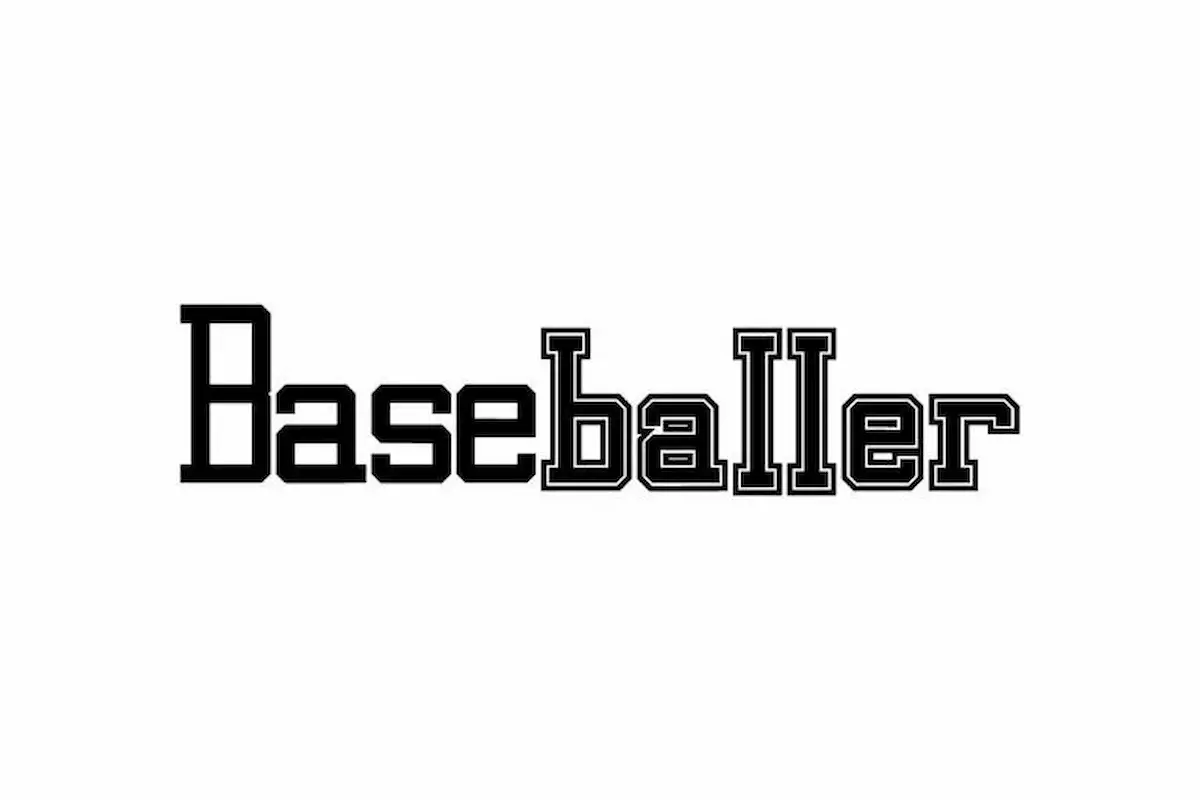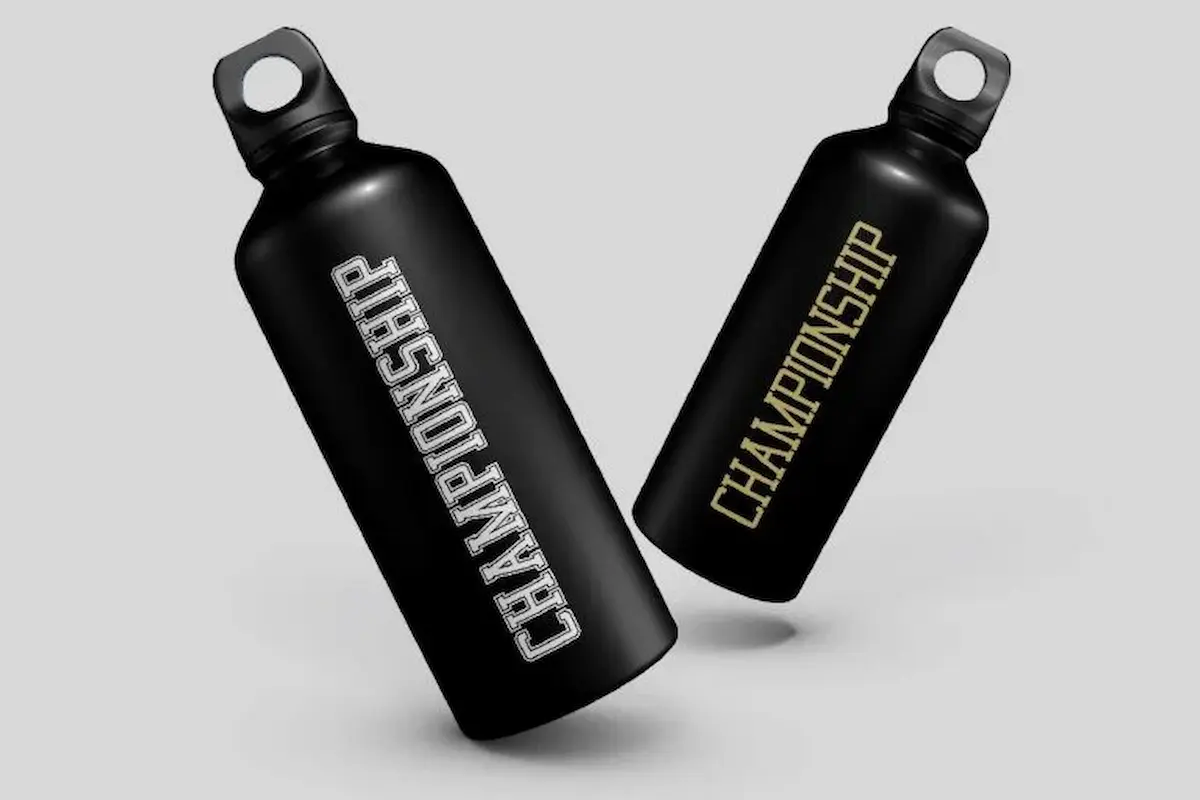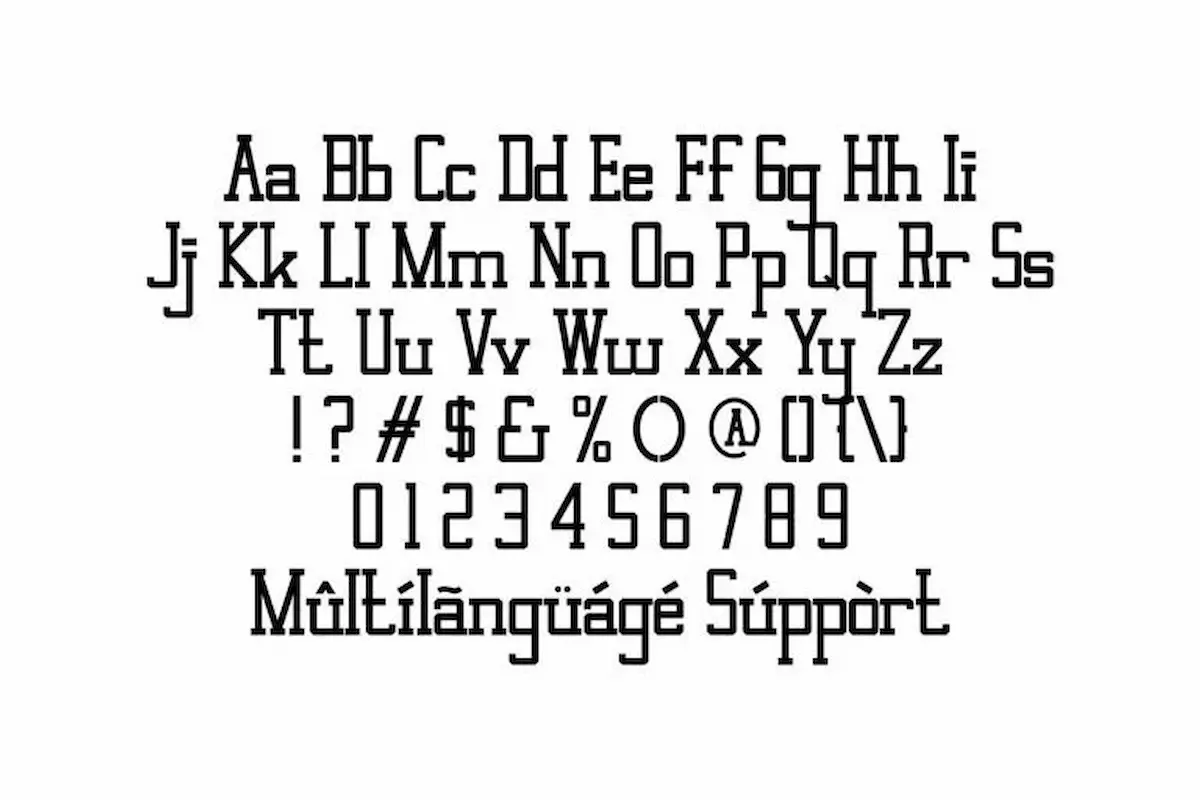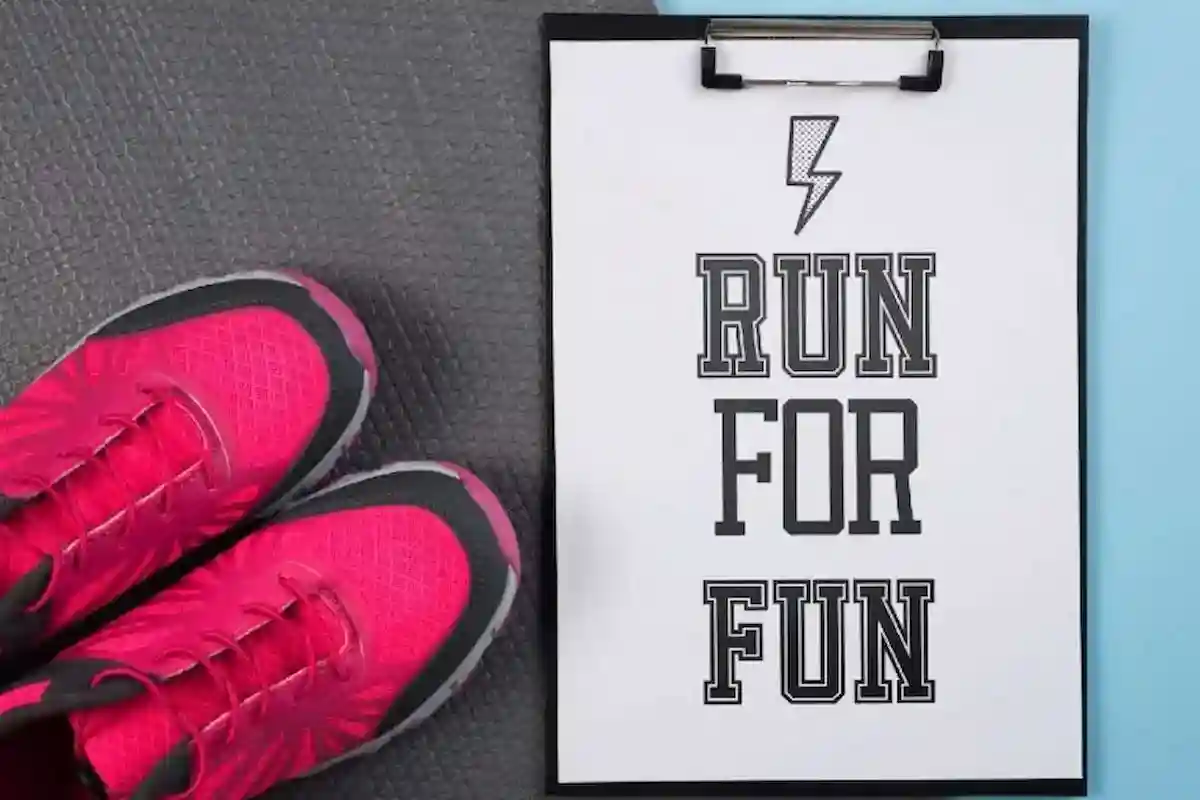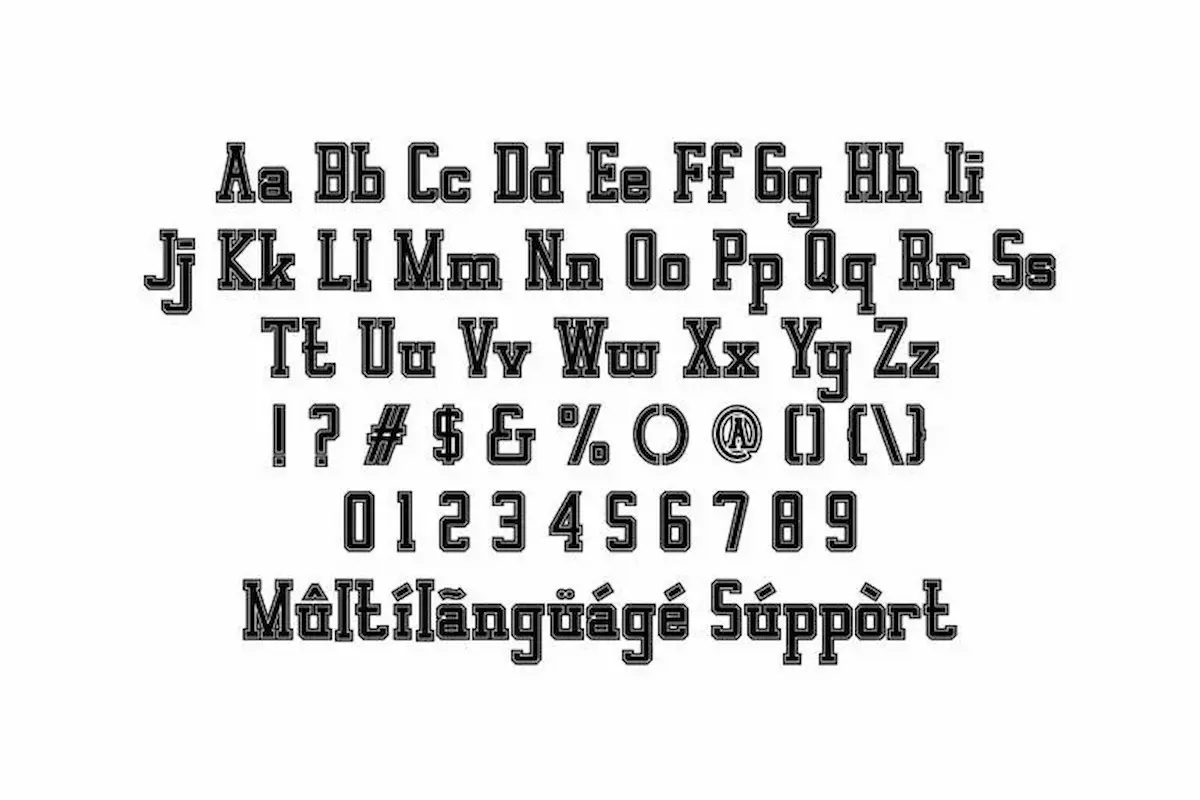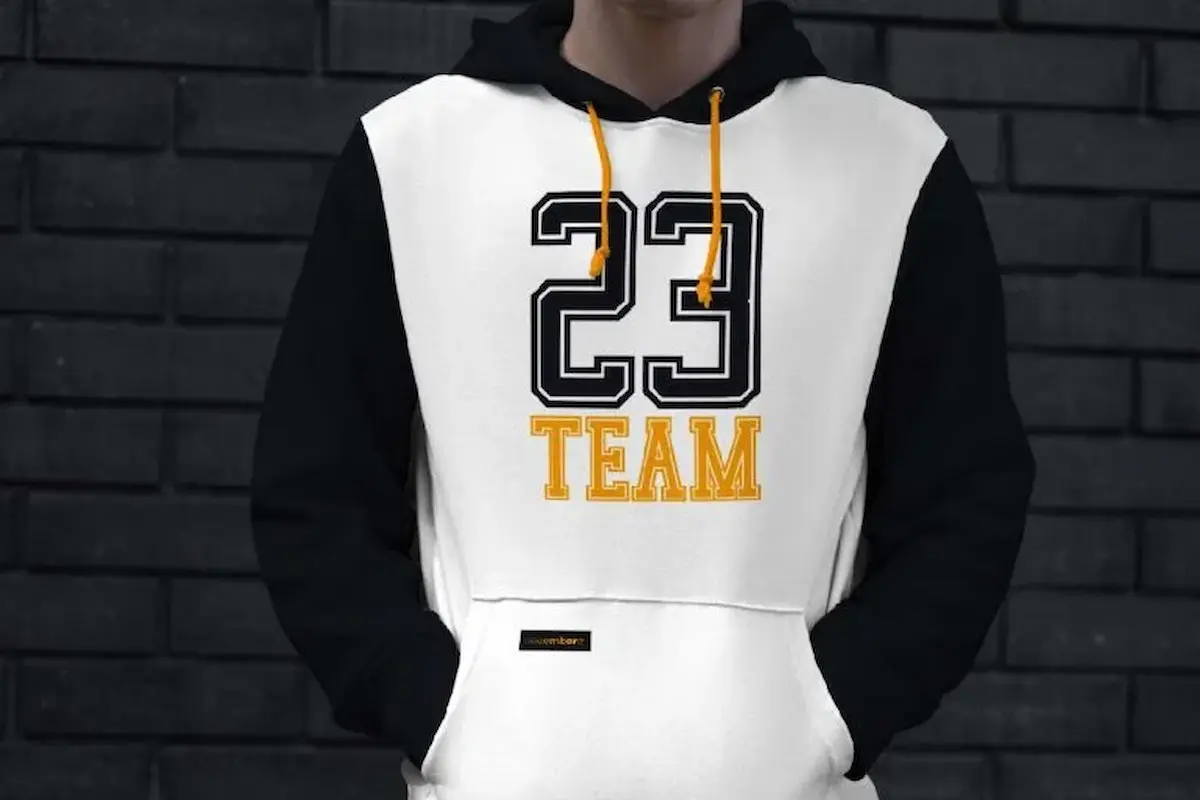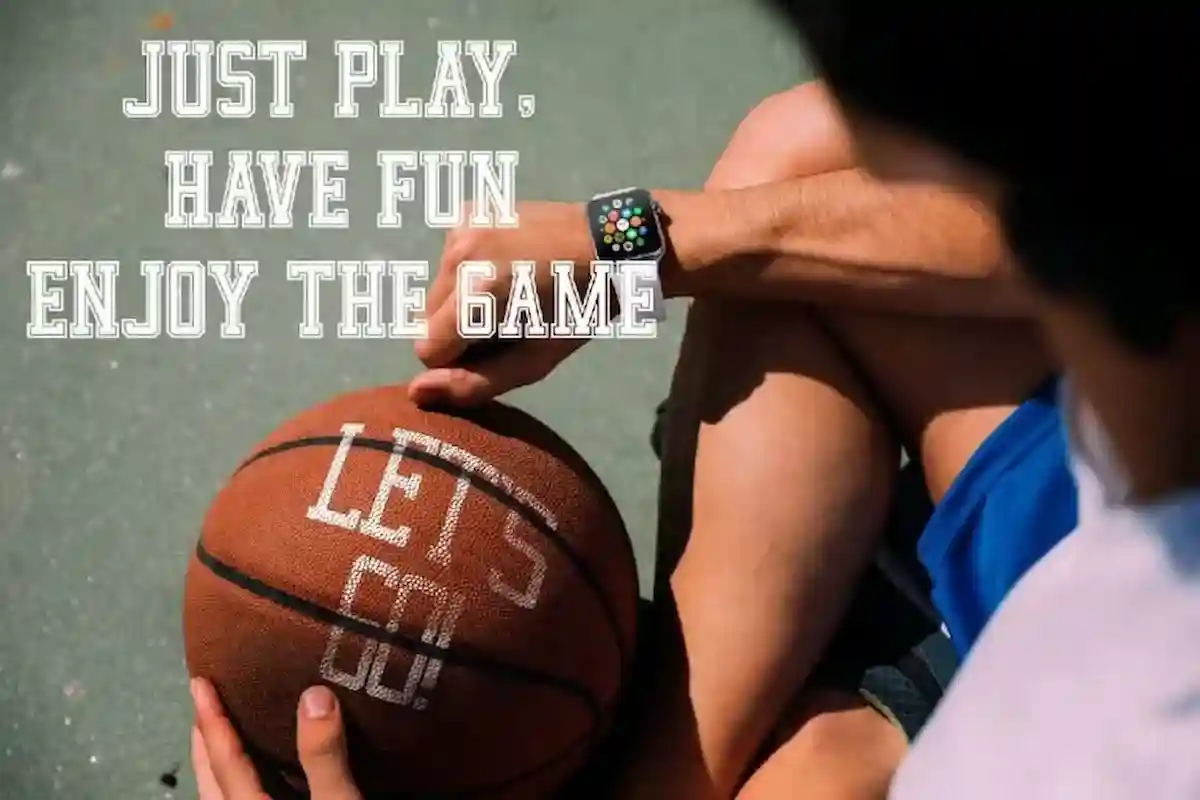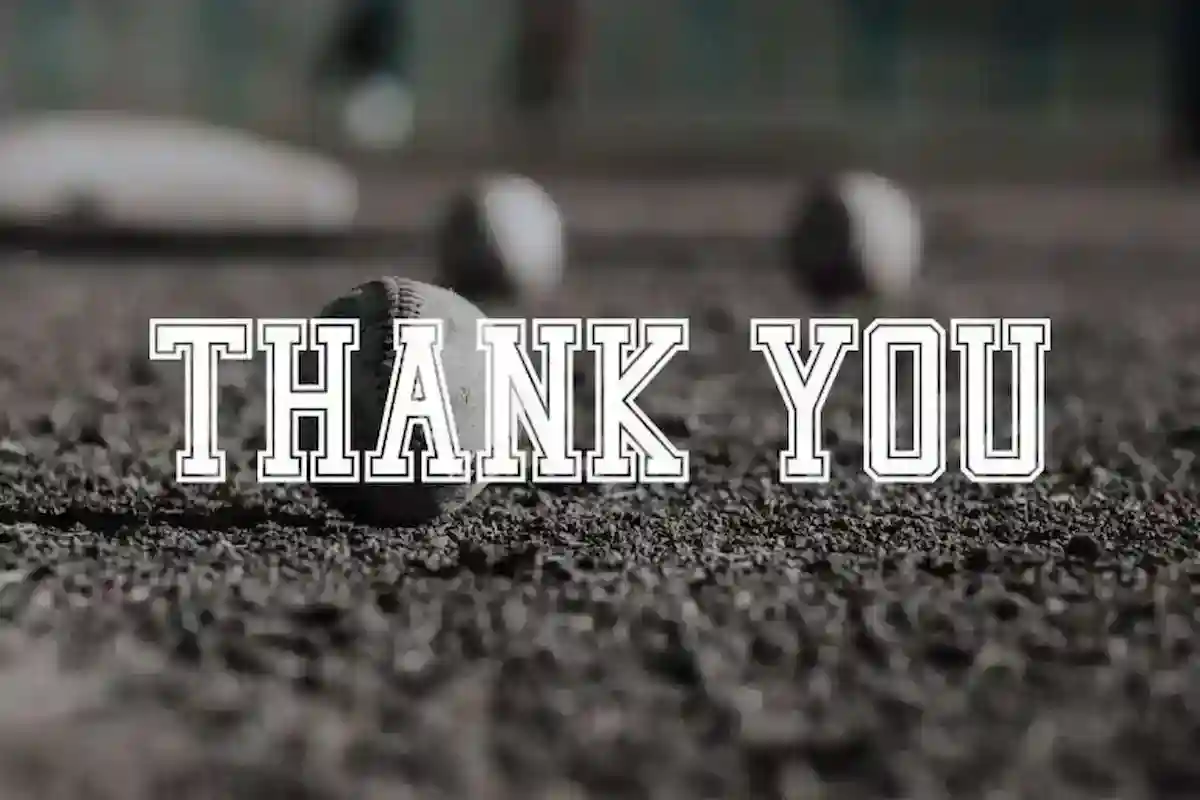
Baseballer Font is a sport serif font by NihStudio, made in 2021. Baseballer Font will great for sports, cafe, music, western, automotive etc.
Baseballer Serif Font is a serif font family originally designed by NihStudio. It is inspired from Baseball sport. It has two styles : Regular and Shadow. On the package you will get :
Handcrafted here in our Studio , Indonesia. Baseballer comes great for many business industries : restaurant, cafe, music, singer, automotive, property etc